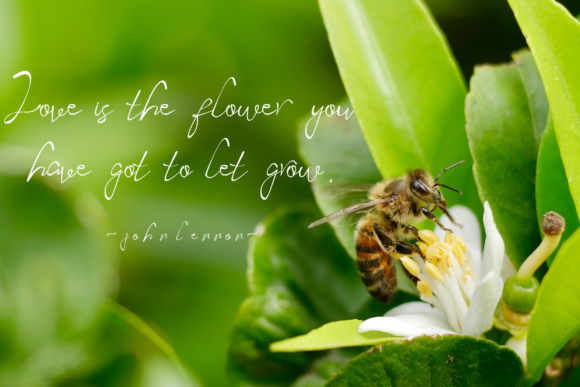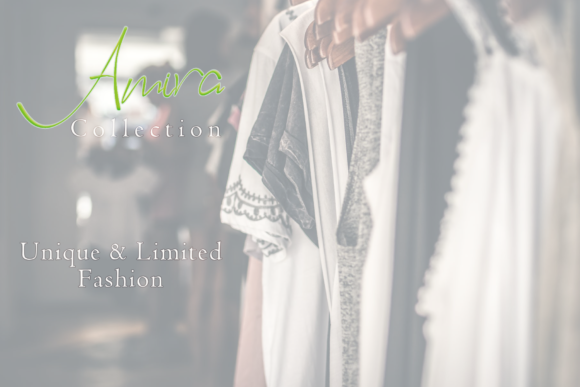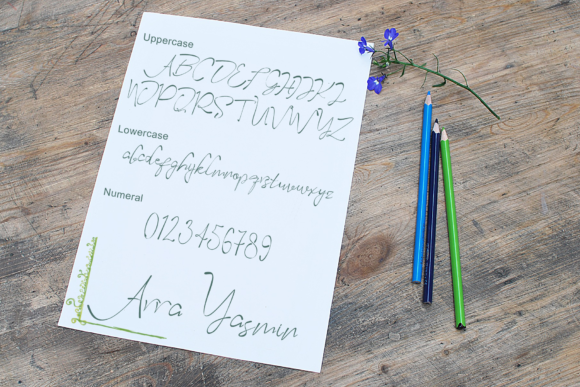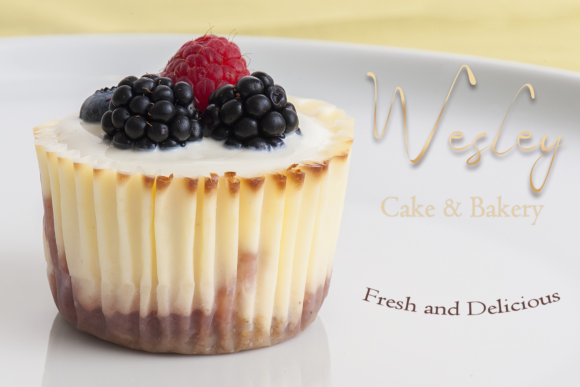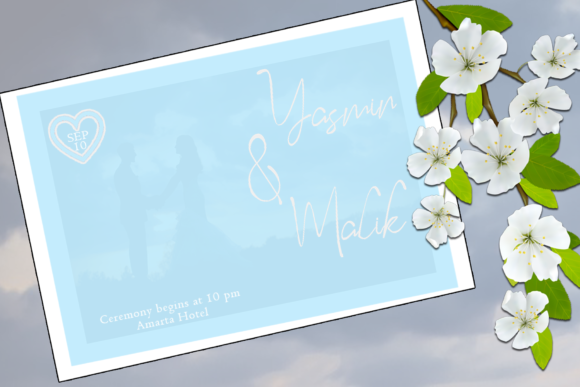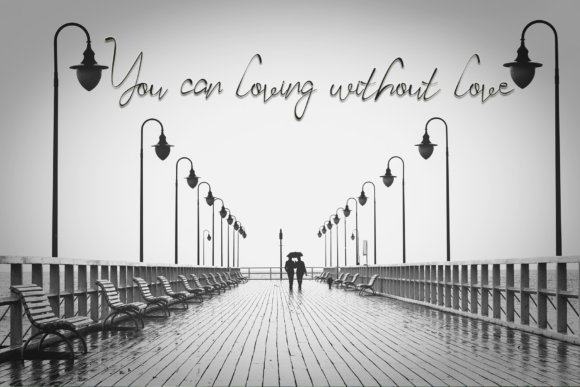
The Quest for the Perfect Handwritten Font: Discovering Arra Yasmine
I still remember the design project that led me to Arra Yasmine. I was working on a branding project for a new eco-friendly product line, and I needed a font that would convey a sense of naturalness and calmness. I spent hours scouring the internet for the perfect handwritten font, but nothing seemed quite right. That was until I stumbled upon Arra Yasmine. ✨
An Honest Review of Arra Yasmine
Arra Yasmine is a beautiful handwritten font with a natural and calm flow. Here’s what I love about it:
- 💫 It’s incredibly versatile and works well for a huge variety of applications, from branding and packaging to digital media and crafts.
- ✅ The font has a very approachable and friendly feel, making it perfect for projects that require a personal touch.
- 🌿 The natural flow of the font gives it a unique, organic feel that’s hard to find in digital fonts.
Of course, no font is perfect, and Arra Yasmine has a few quirks:
- 🤔 Some users may find the font a bit too casual for very formal projects. However, I think this is part of its charm!
- ⚠️ As with any handwritten font, some letters may not be suitable for use in very small sizes or at certain resolutions.
The Story Behind Arra Yasmine
Arra Yasmine was designed with the intention of creating a font that would evoke a sense of naturalness and calmness. The designer, who wishes to remain anonymous, drew inspiration from handwritten notes and letters to create a font that feels approachable and friendly.
| Font Name | Arra Yasmine Font |
| Author | Wras Studio |
| What is Arra Yasmine best used for? | Arra Yasmine is a versatile font that works well for a huge variety of applications, including branding, packaging, digital media, and crafts. |
| Is Arra Yasmine suitable for body text? | While Arra Yasmine is a beautiful font, it’s best suited for headlines and short paragraphs. For body text, you may want to choose a font with better readability. |
| Does Arra Yasmine support OpenType features? | Yes, Arra Yasmine supports OpenType features like glyphs and stylistic alternates. You can access these features in compatible software like Adobe Creative Cloud. |